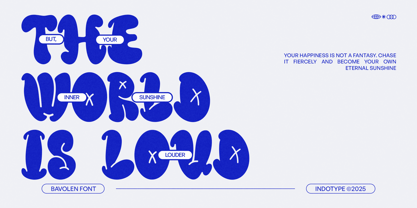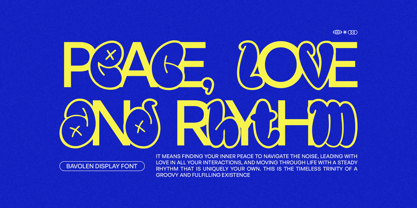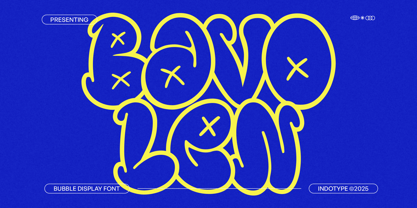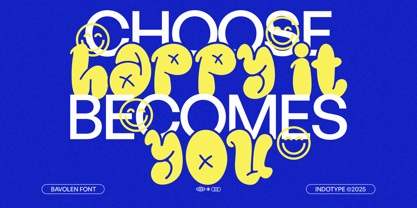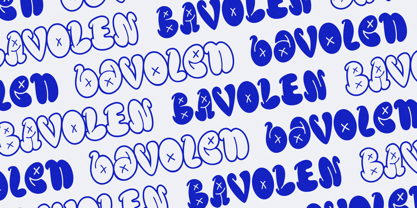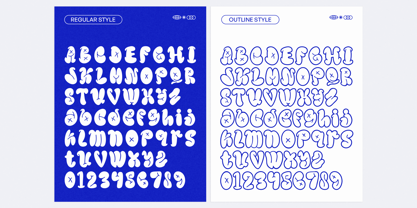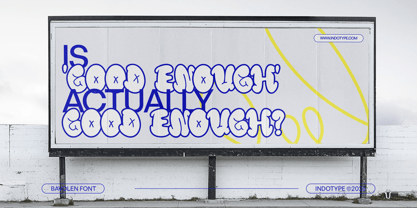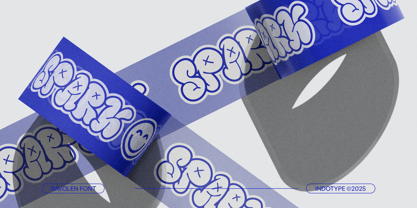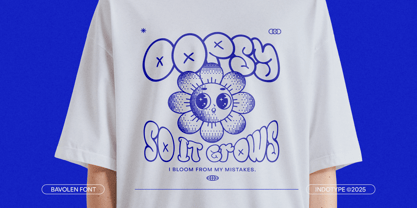
IT Bavolen
by Indotype
The IT Bavolen Font Family was designed by Frederik Aristaputra and published by Indotype. IT Bavolen contains 2 styles and family package options. More about this family
Bavolen is a bold bubble display typeface that captures the lively spirit of graffiti and street-style lettering. With its rounded, inflated shapes and playful rhythm, Bavolen delivers a strong visual personality that’s both fun and impactful. Each character feels hand-drawn and expressive, bringing an authentic urban energy to any design. Its generous curves and soft outlines make it perfect for youthful branding, streetwear logos, poster art, album covers, or any creative project that wants to pop with character and positivity. Bavolen’s smooth yet energetic design ensures maximum readability while maintaining its bold personality, making it an excellent choice for both digital and print use.
Designers: Frederik Aristaputra
Foundry: Indotype